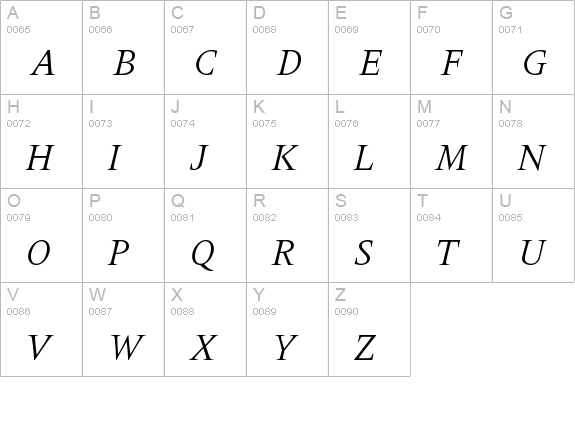
Meridien Italic is a distinctive, italic variant in the Meridien typeface family \xE2\x80\x94 well suited to design and typography projects.
Meridien Italic font is a sleek and elegant typeface that exudes sophistication and modernity. With its slanted and stylish letterforms, this font is perfect for adding a touch of class to any design project. The Meridien Italic font is versatile and can be used for a variety of purposes, from branding to editorial design. What's even better is that this exquisite font is available for free download at FontsMarket.com. So whether you're a designer looking to elevate your projects or a business owner wanting to enhance your branding, Meridien Italic font is the perfect choice. Download it today and add a touch of elegance to your designs.